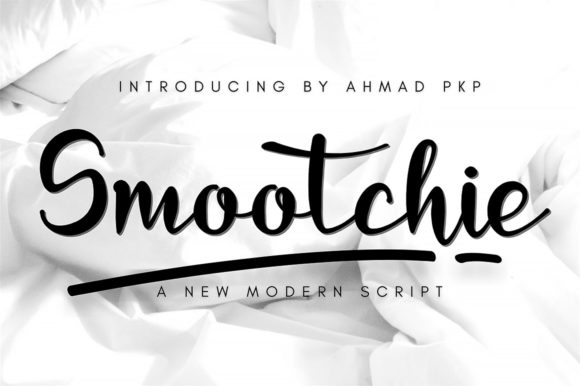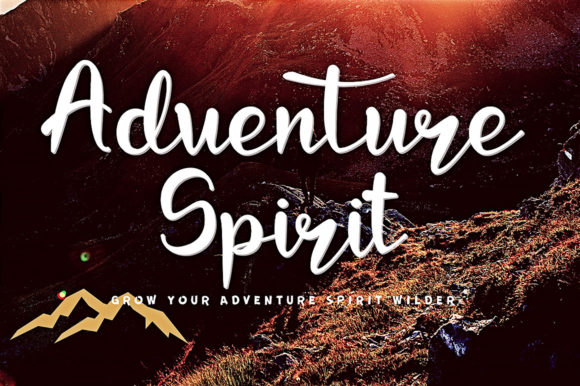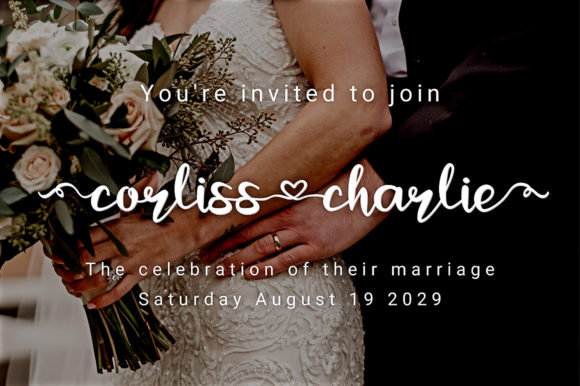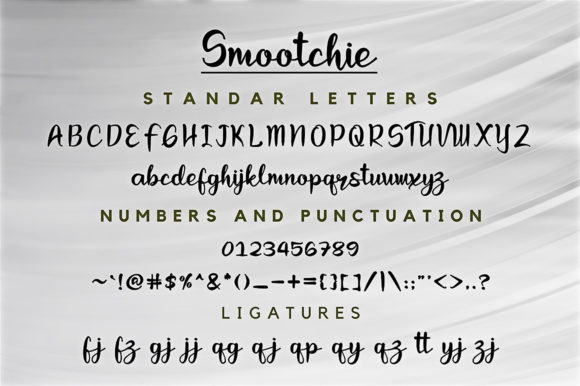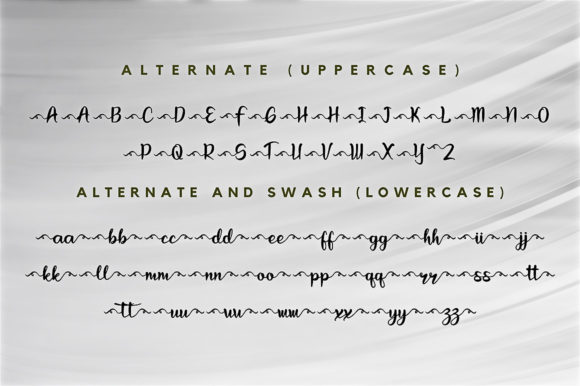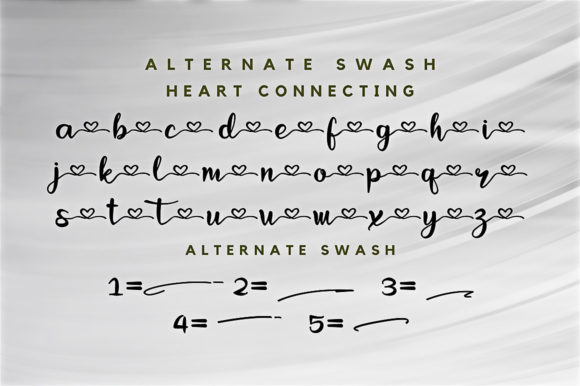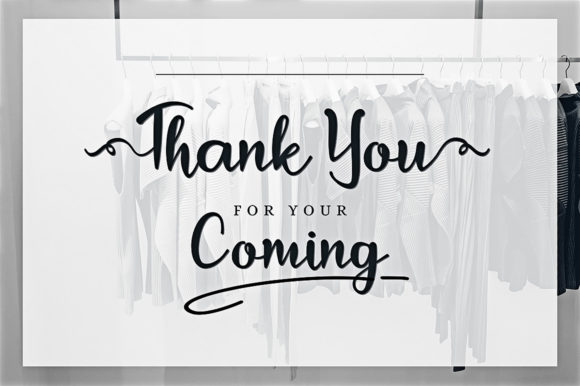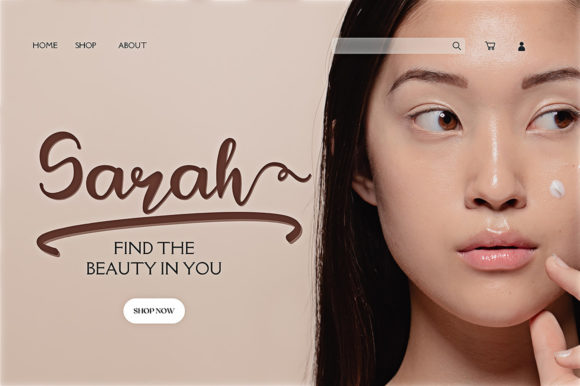
Smootchie Font
About Smootchie Font
Smotchie is a simple, unique, and easy to apply script font. You can add this elegant font to your wedding invitations, business cards, greeting cards, social media posts, wall arts and many more. Smotchie is PUA encoded which means you can access all of the glyphs and swashes with ease!